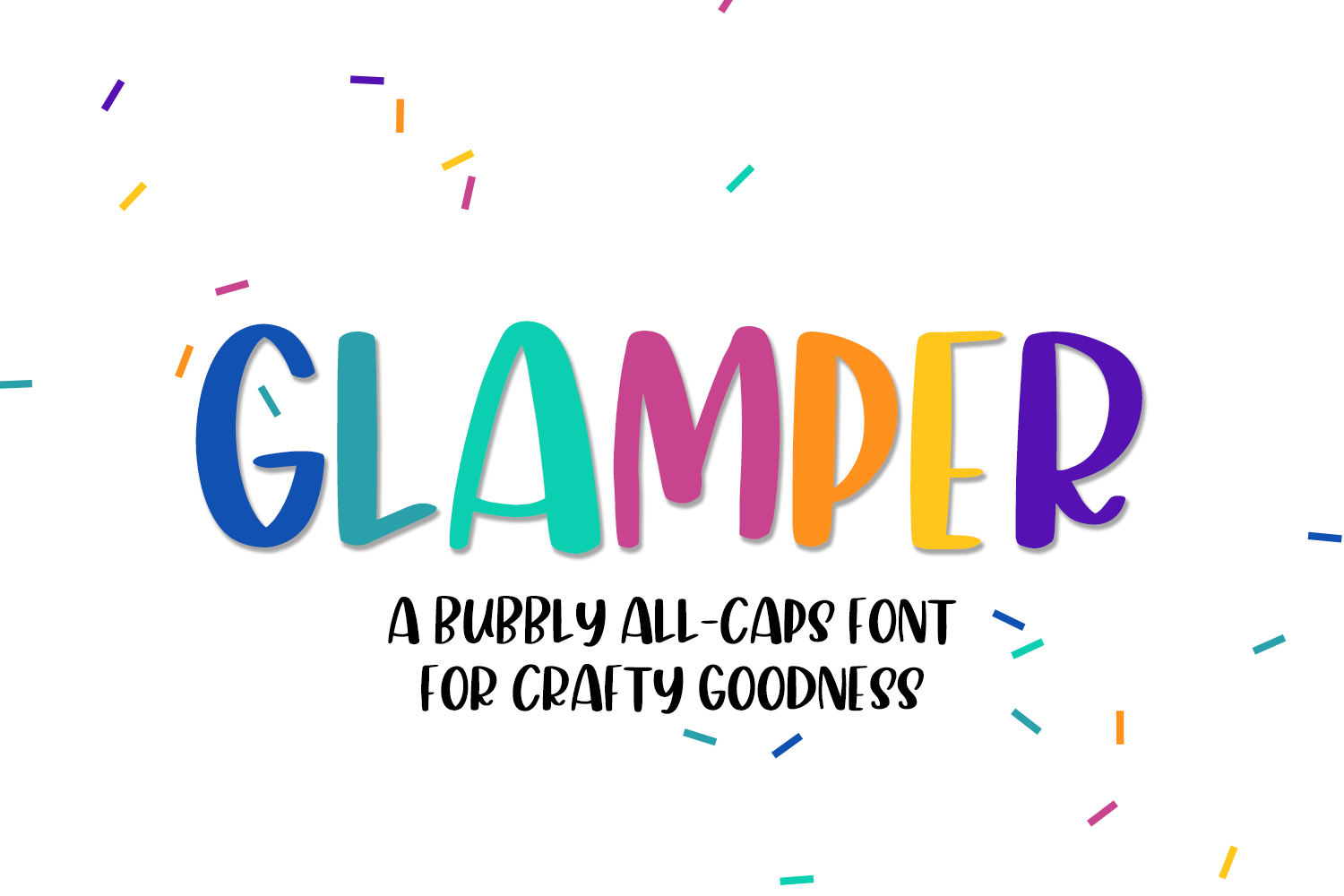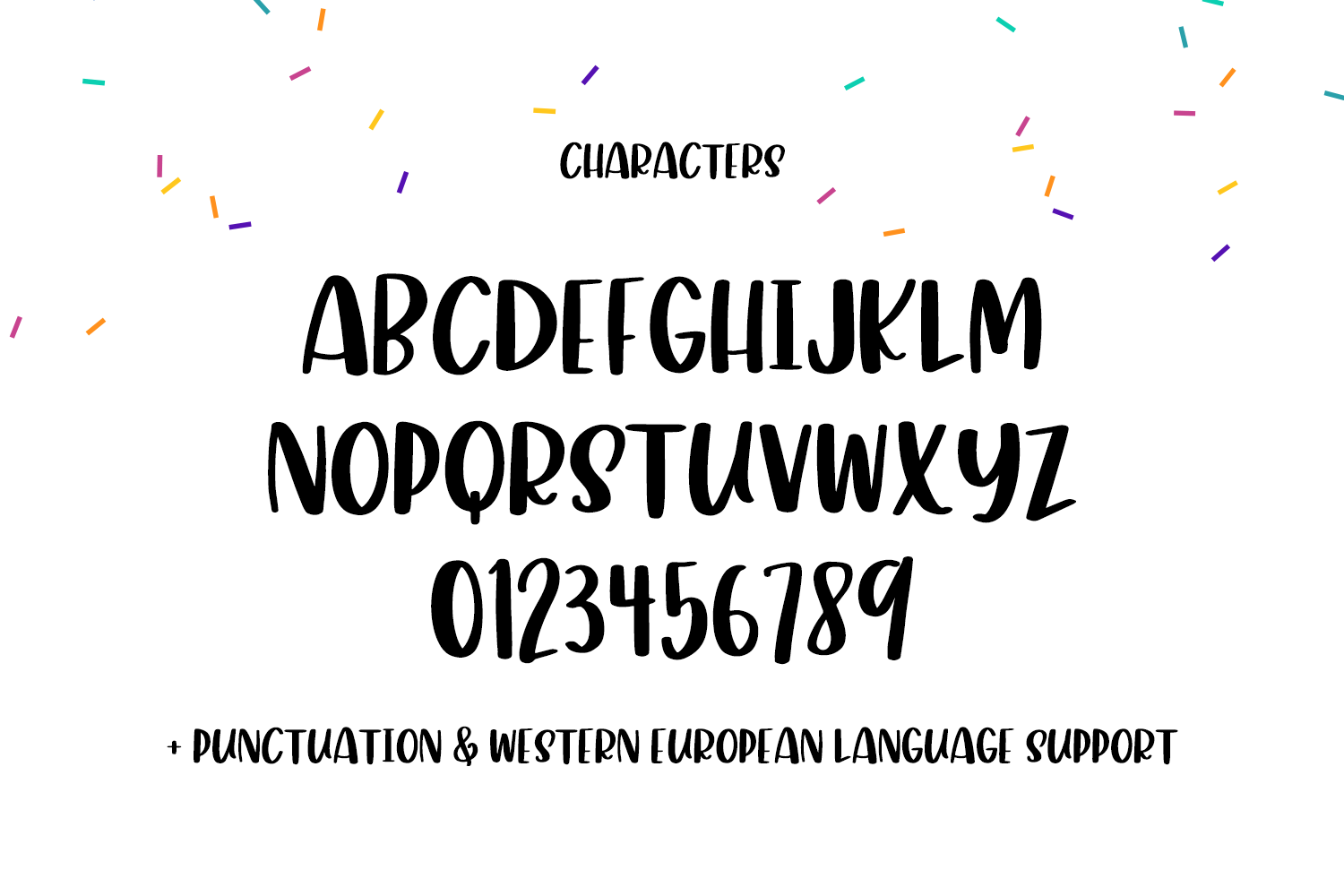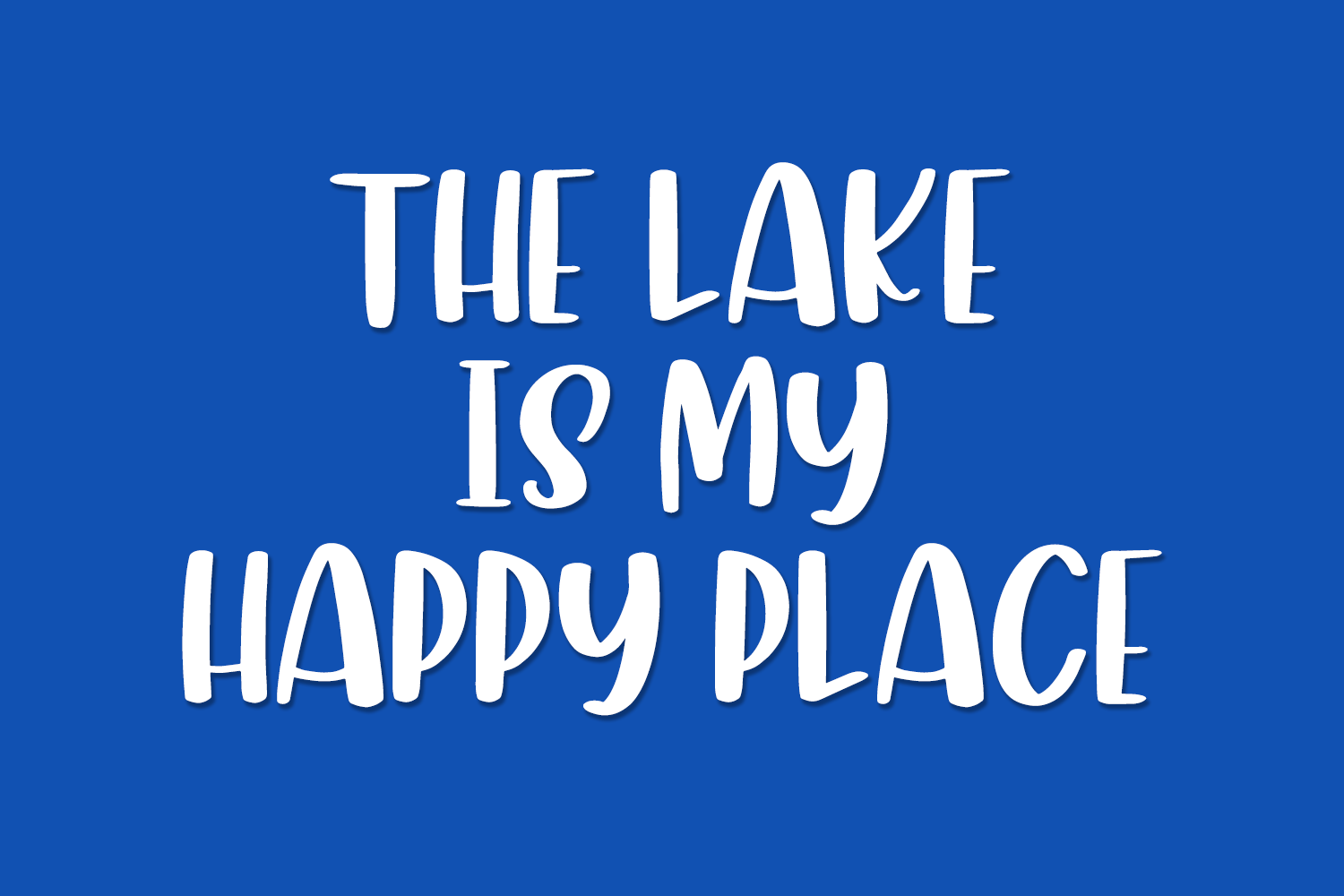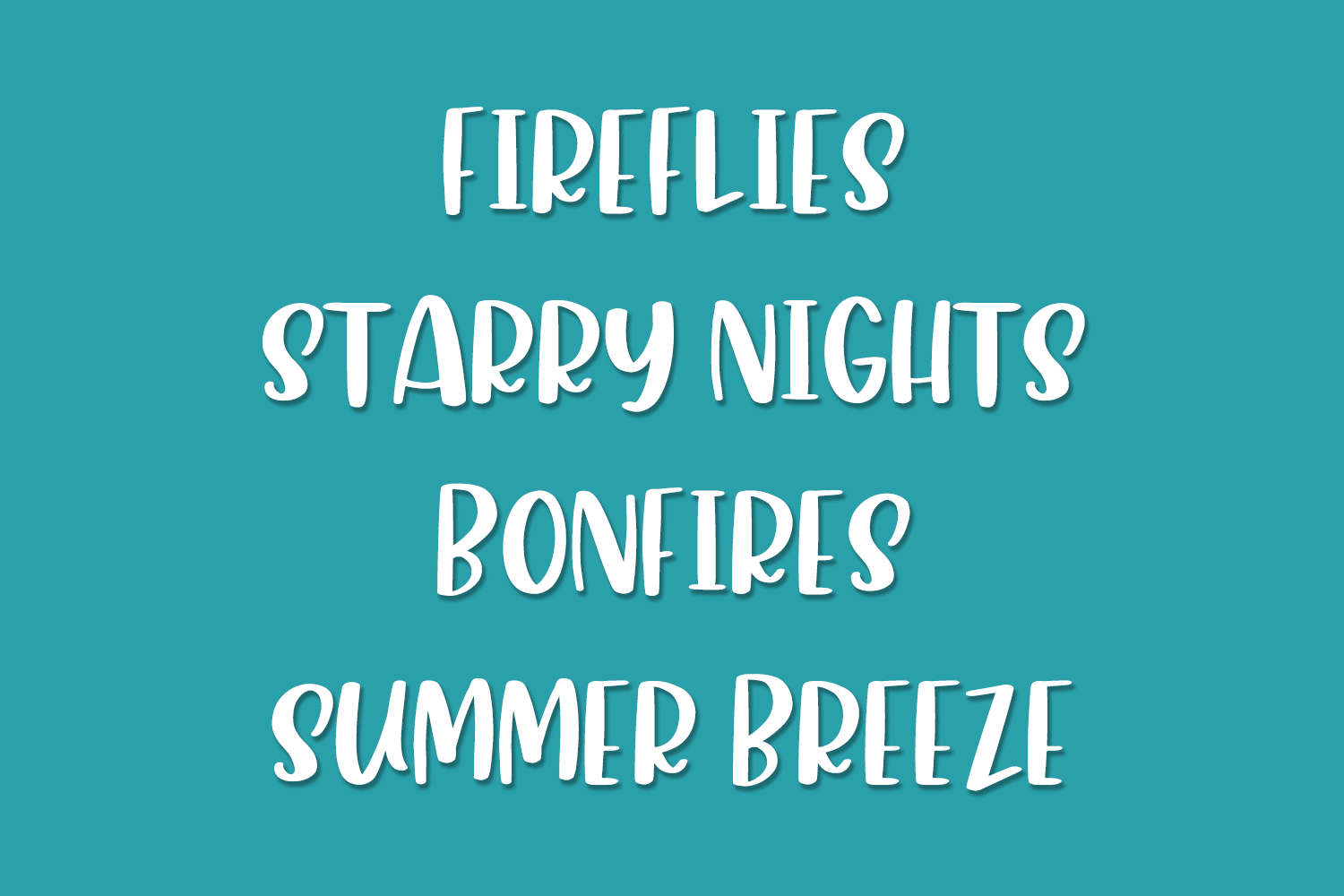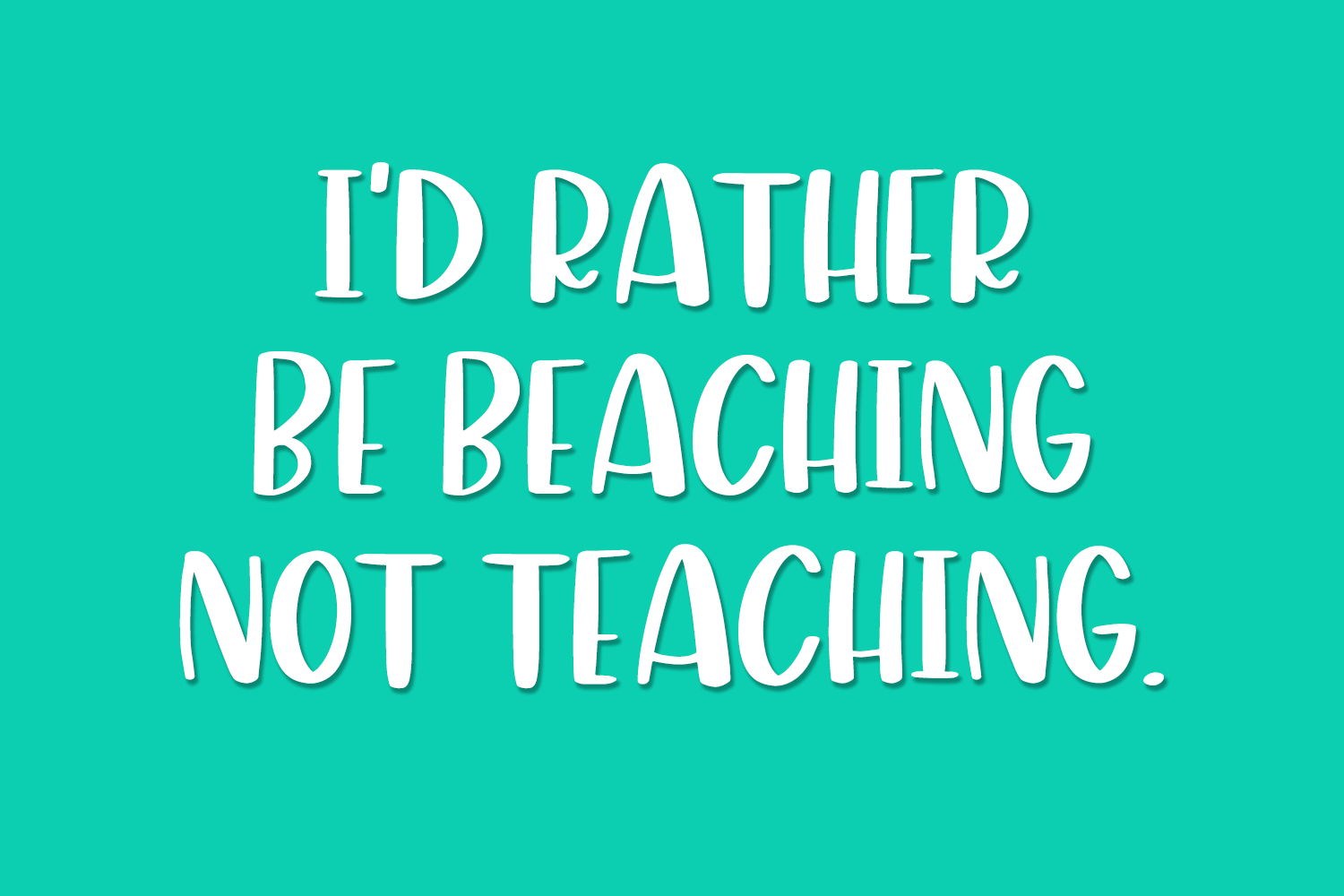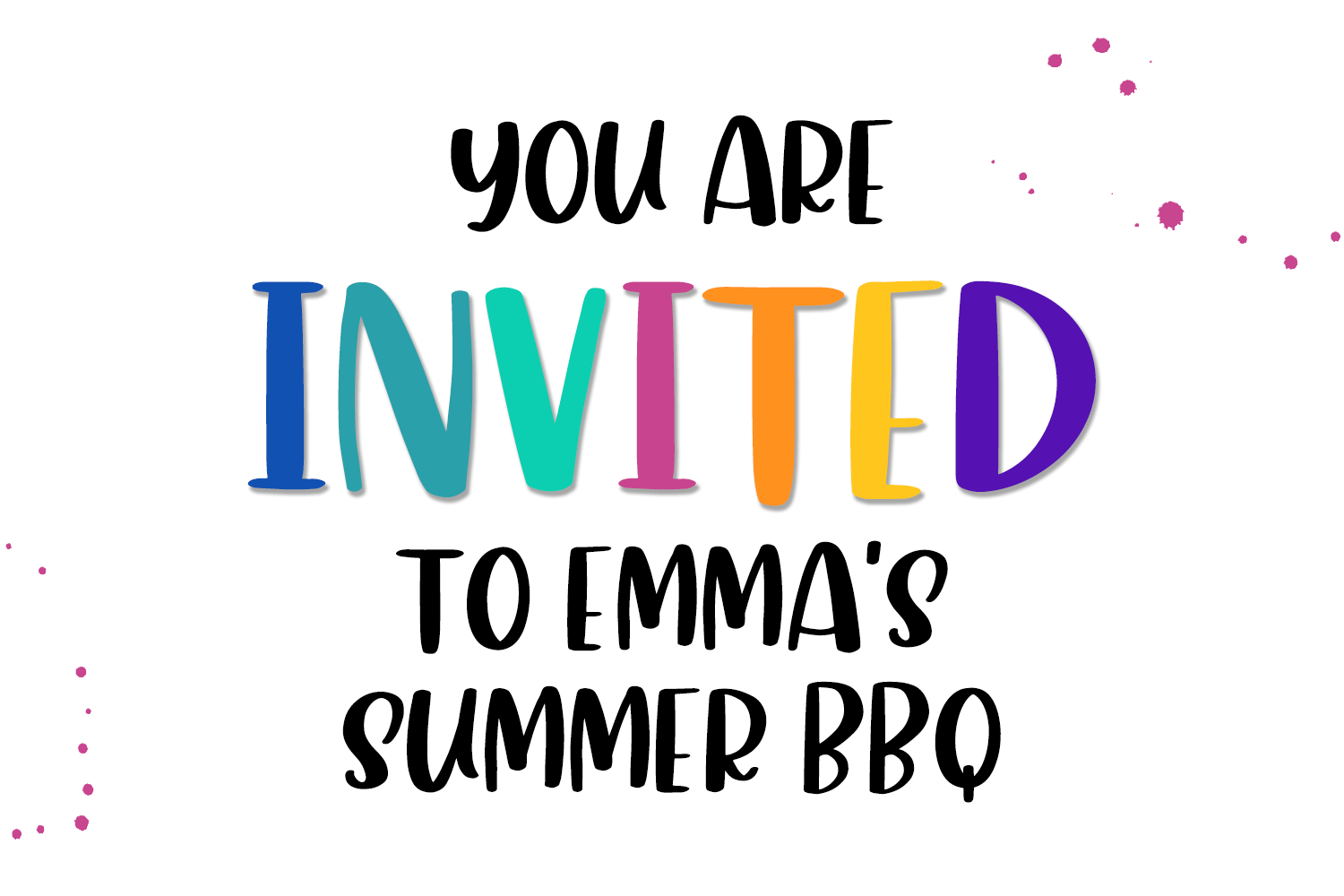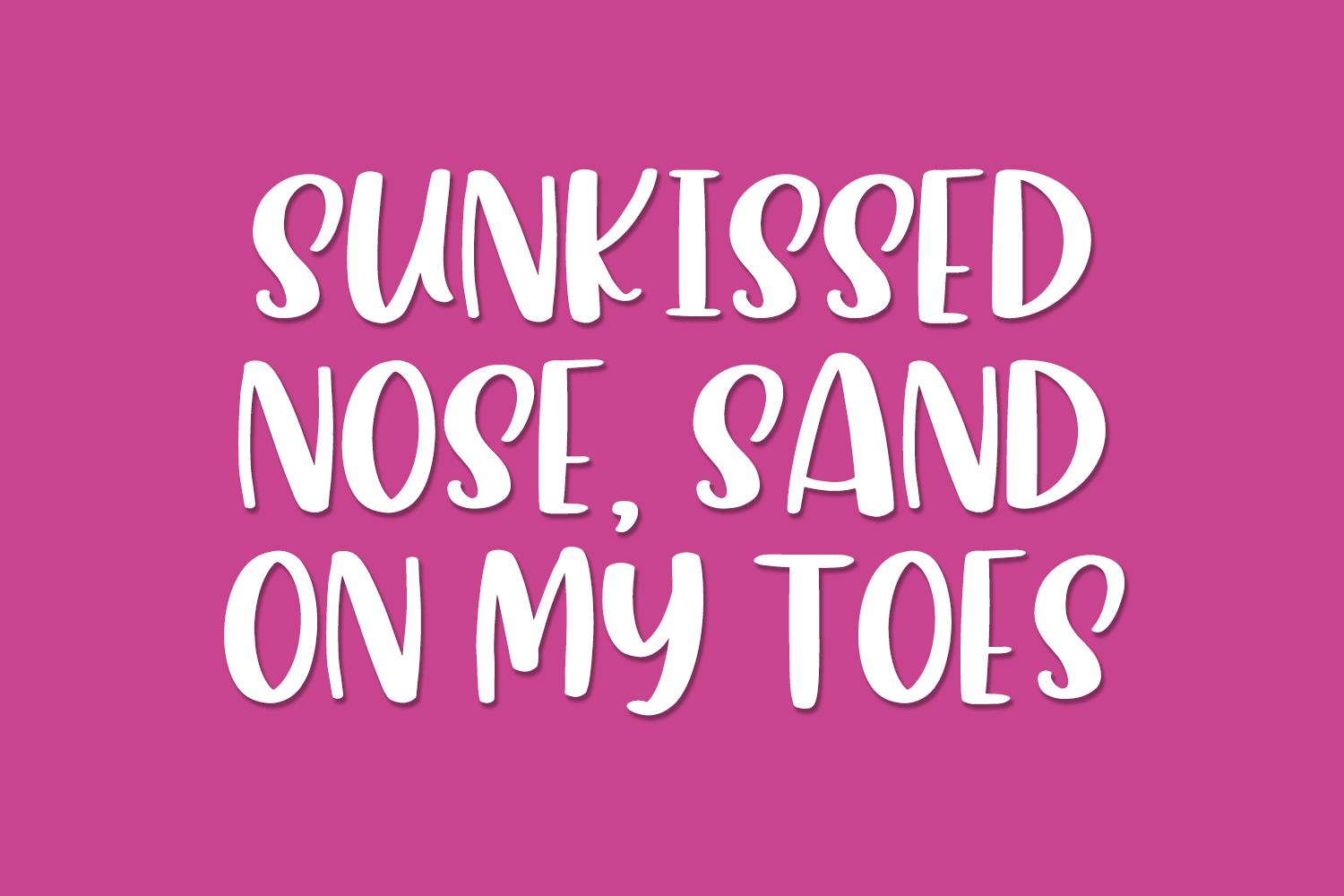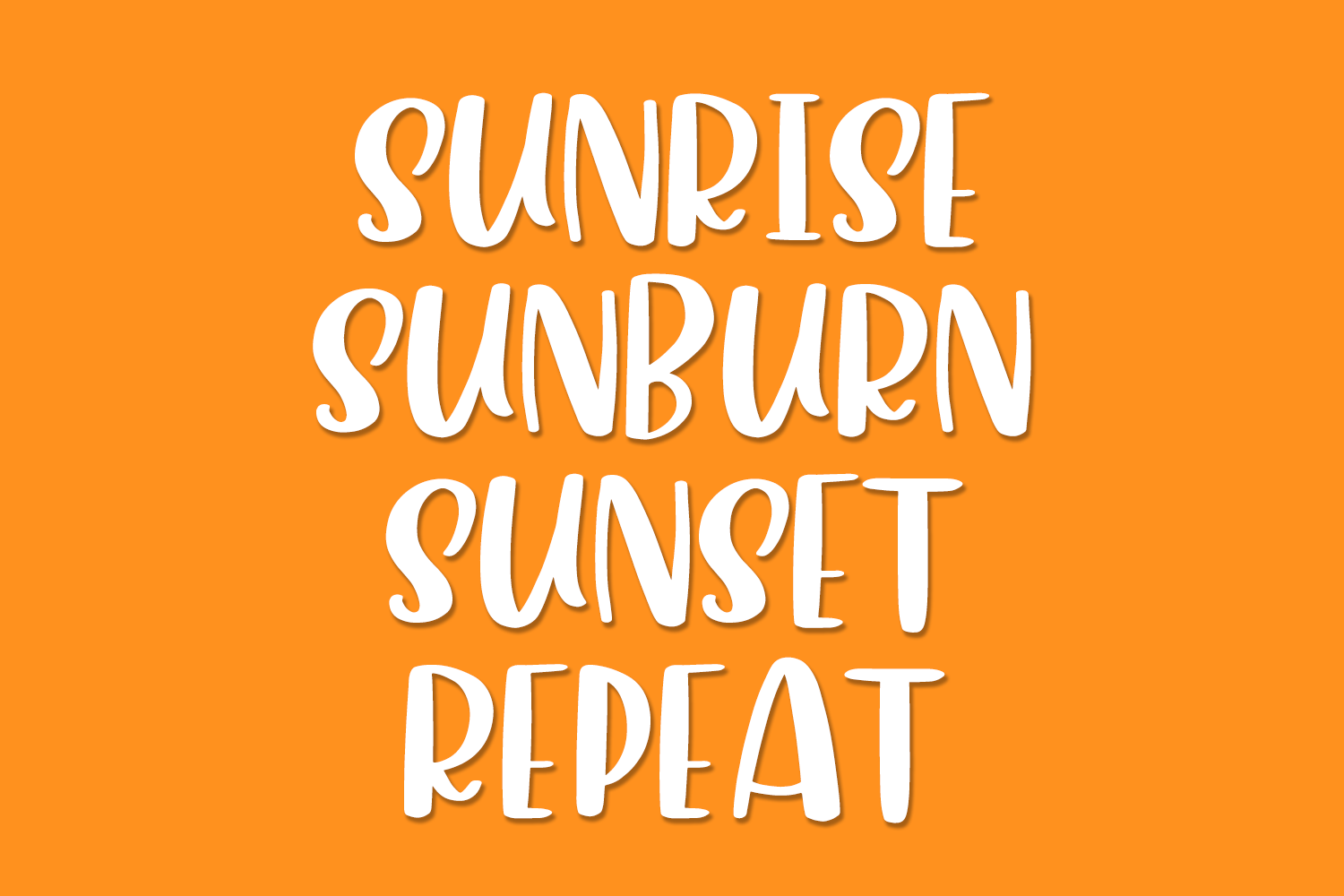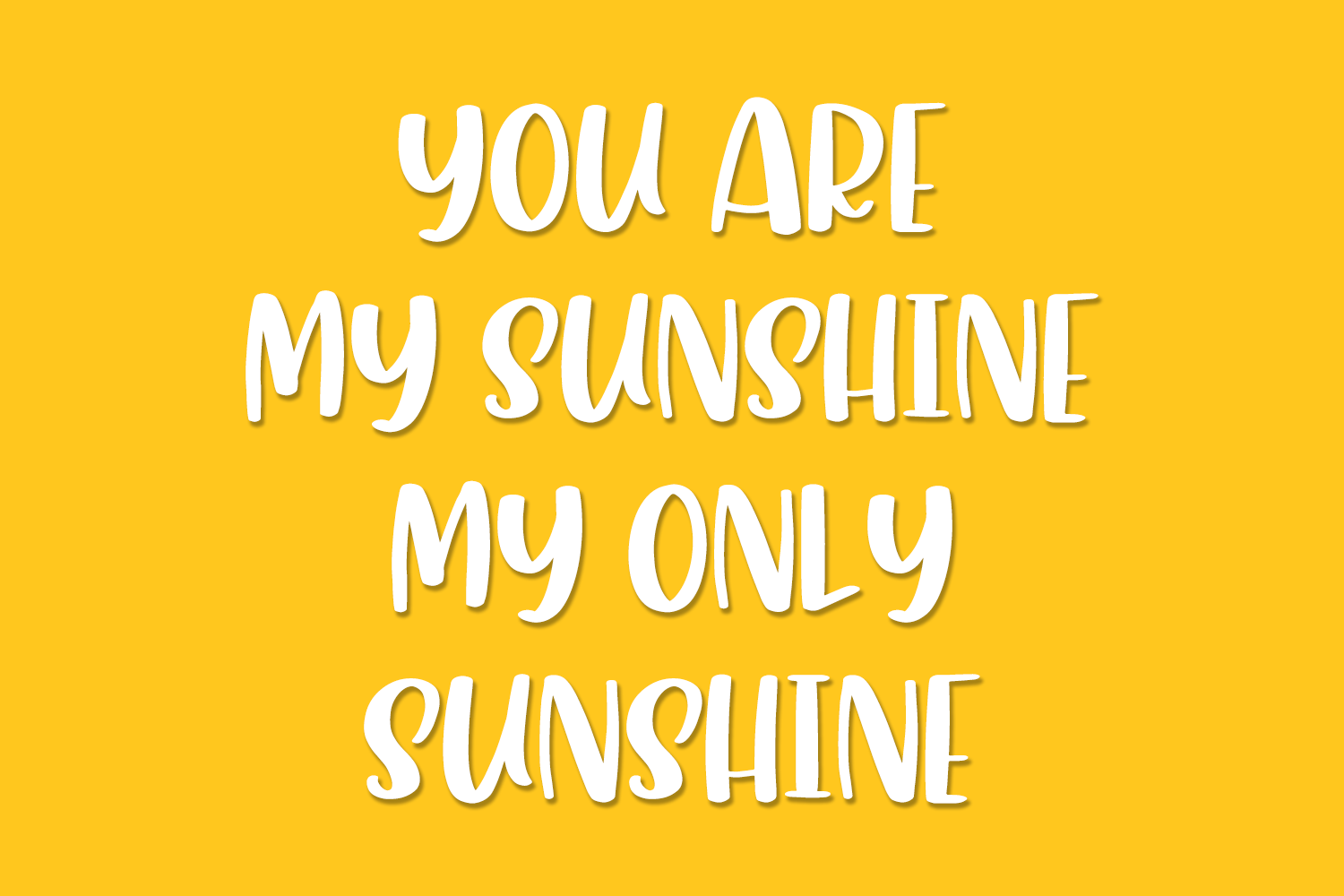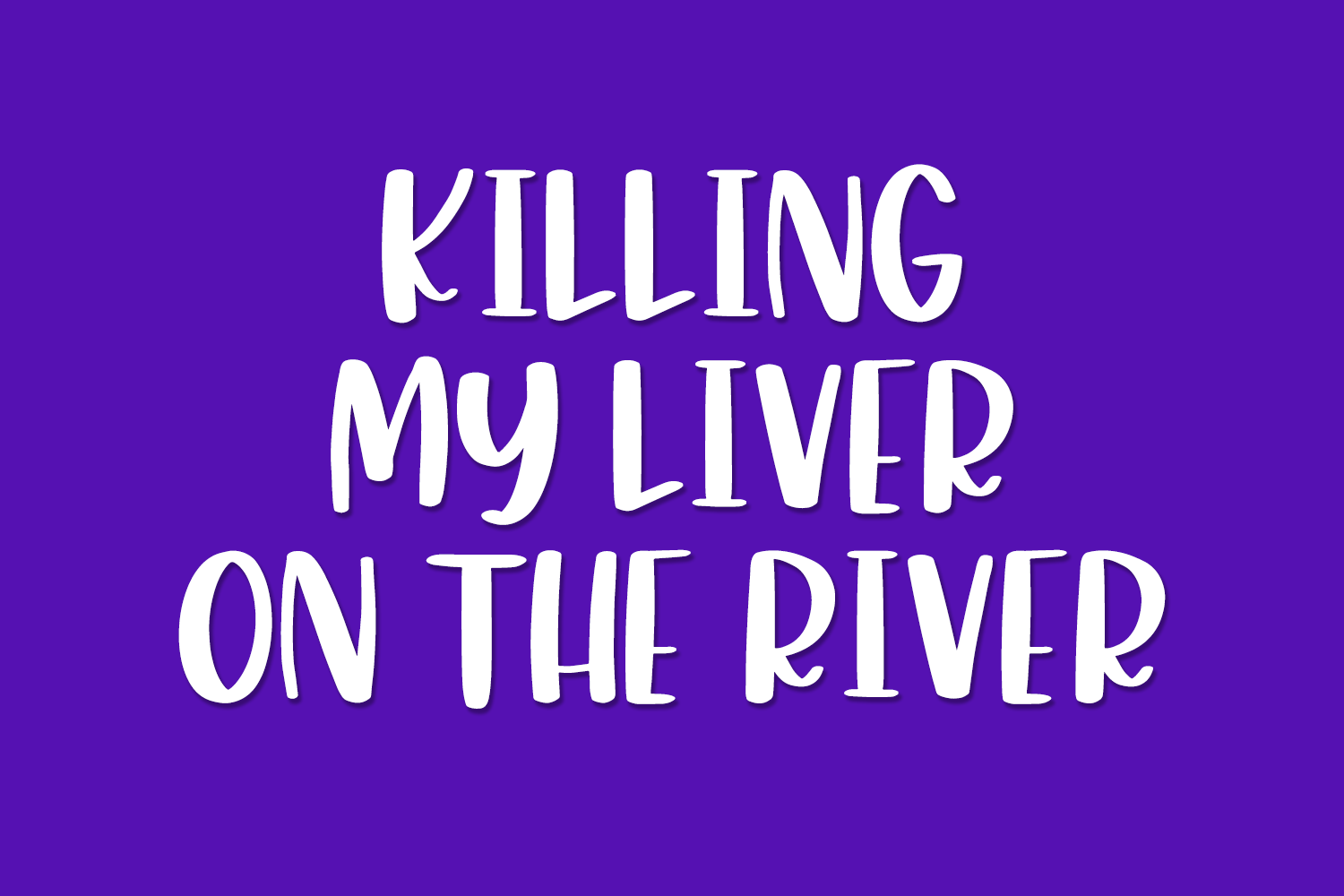
Glamper Sans Font
Glamper is an insanely chunky all caps font that has been handlettered for bold, super cute additions to your next project.
Glamper Sans is best for:
– quote graphics for social media
– logos + branding for kid-centric brands
– design items like shirts, coffee mugs, & more
– Cricut and Silhouette projects
– other crafting projects
– school or classroom projects
– uppercase characters only